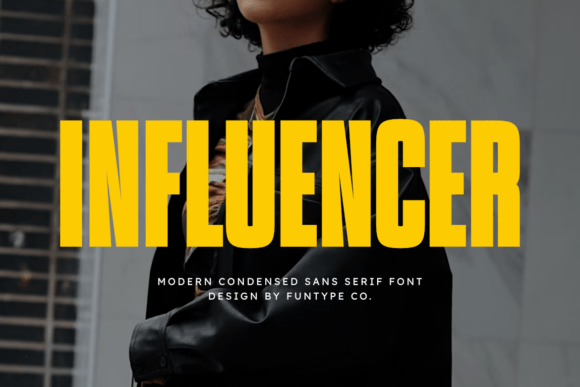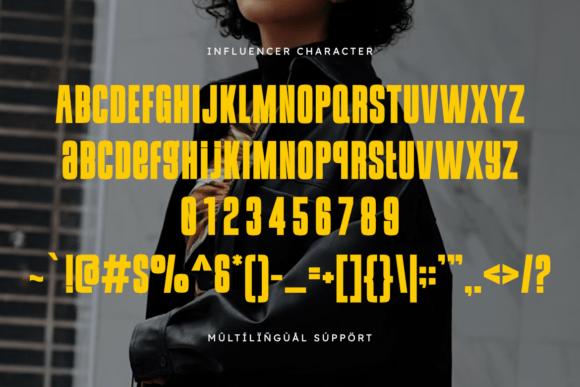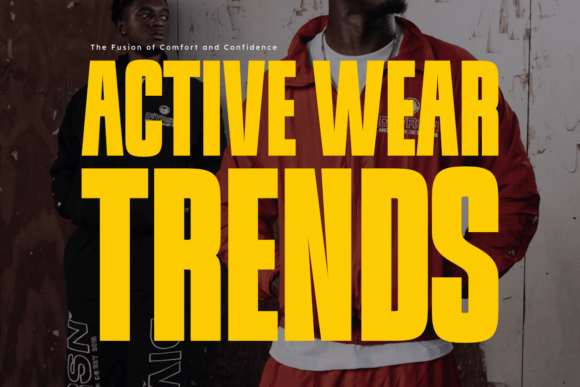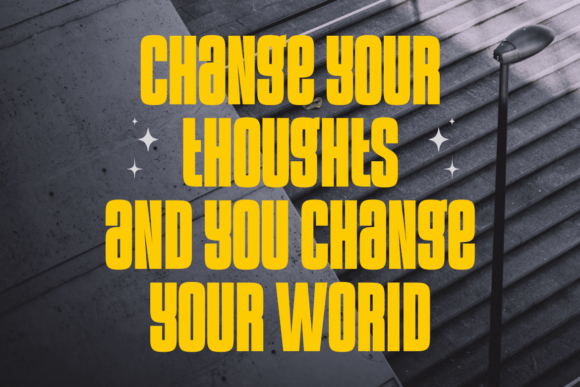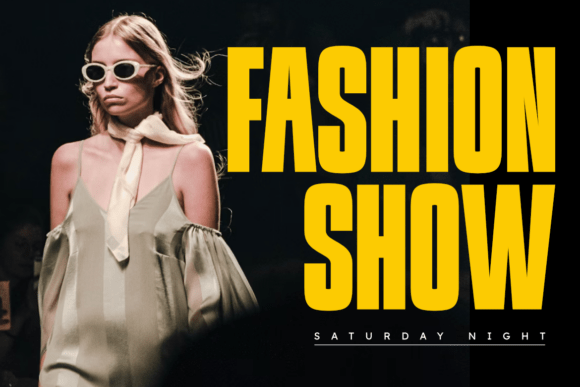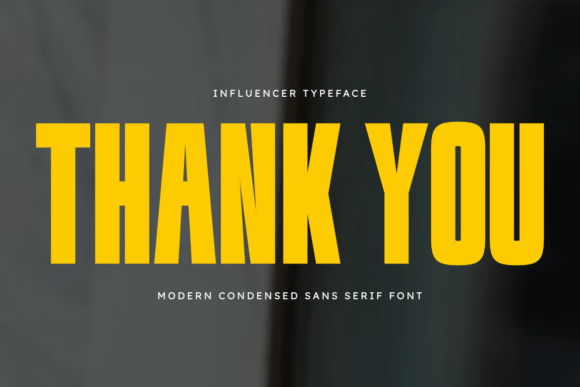
Influencer Font
Influencer is a serious, modern condensed sans serif font with an extremely bold and commanding presence. It features strong geometric lines and a tight structure, making it perfect for powerful headlines, impactful branding, striking posters, editorial layouts, and any design needing a confident, loud, and assertive voice.
Its tall, narrow form dominates the space, ensuring your message is not just seen, but felt. This typeface is ideal for designers seeking a high-impact, contemporary, and professional aesthetic.